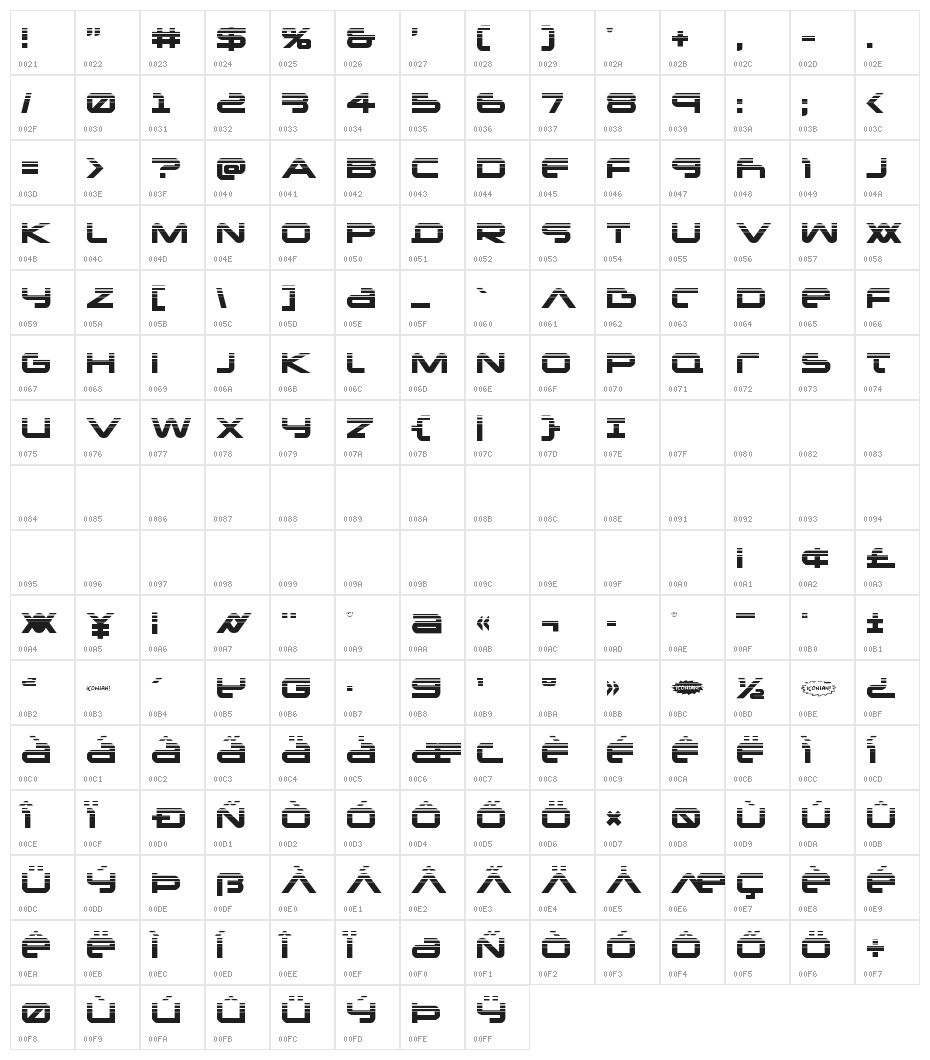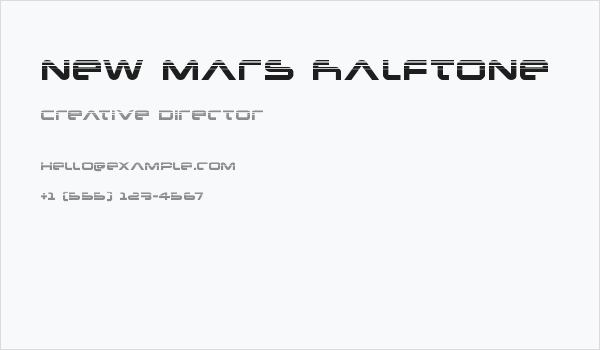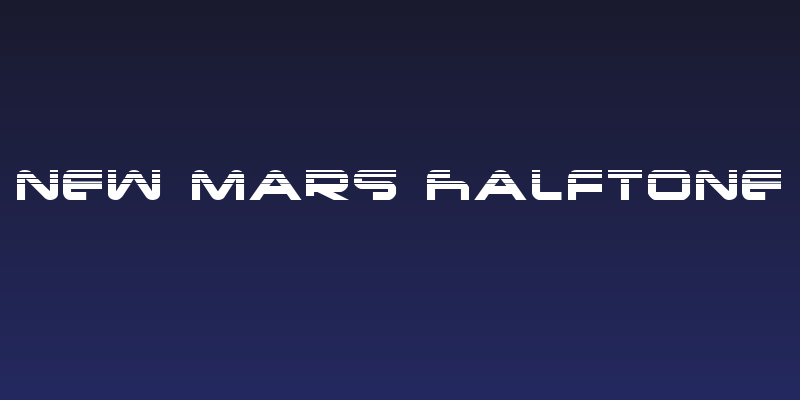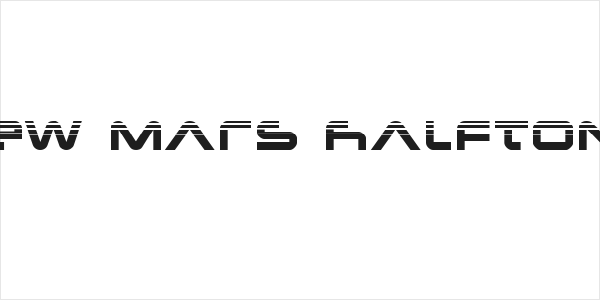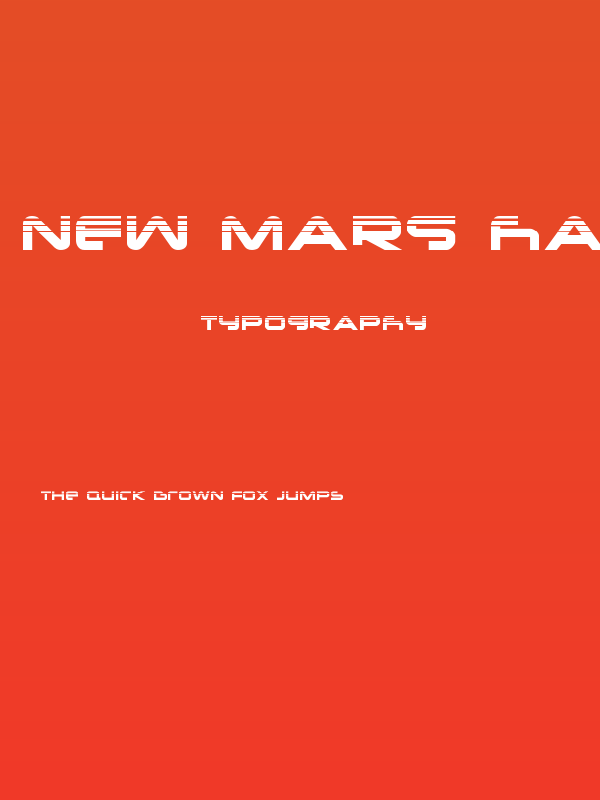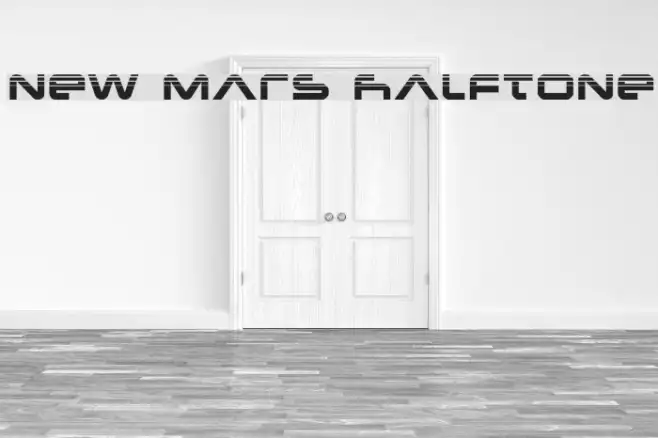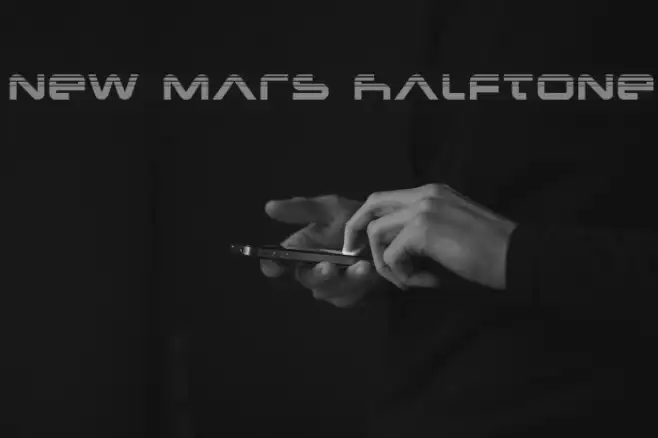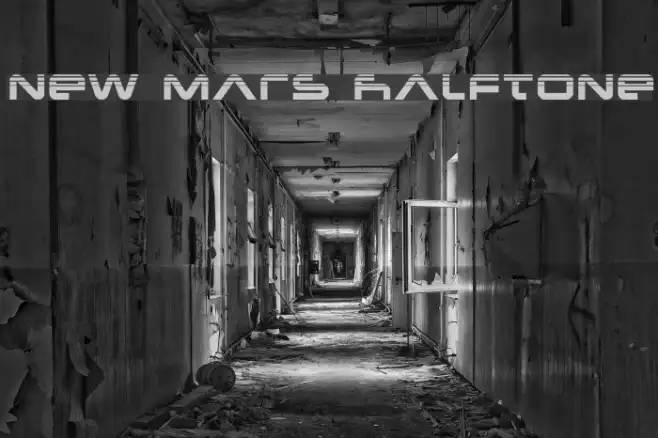
New Mars Halftone Font
New Mars Halftone Description
This font features a futuristic and bold design with a halftone effect that creates a sense of movement and modernity. The characters are constructed with a combination of solid and striped segments, giving them a unique, digital appearance. The uppercase and lowercase letters maintain a consistent style, with angular cuts and a geometric structure. The numbers and special characters follow the same design principles, ensuring uniformity across the font. This font is ideal for projects that require a contemporary and edgy look, such as technology branding, sci-fi themes, or digital media.
| Proposed Projects | Ideal for technology branding, sci-fi themes, digital media, and modern advertising. |